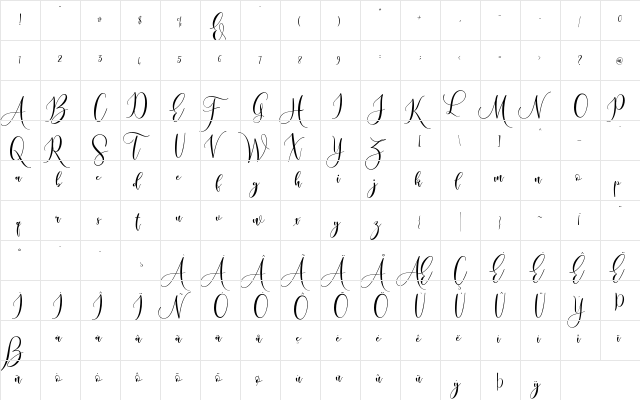
Sleeplesson Regular
Design Context for Sleeplesson Typeface
Sleeplesson is a composed and adaptable typeface that performs quietly and consistently across a wide range of design contexts.